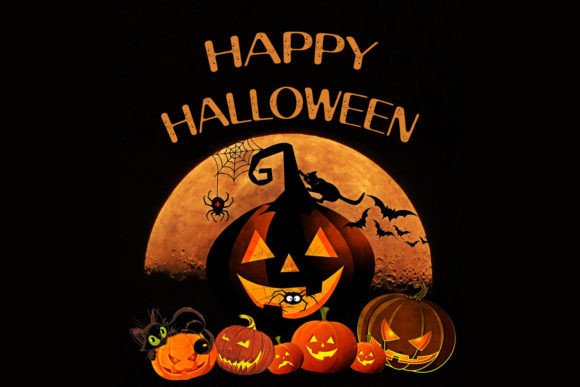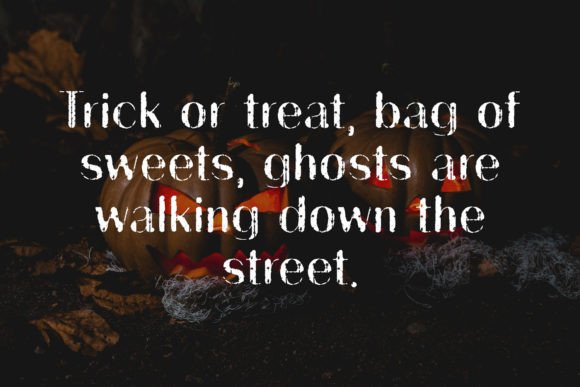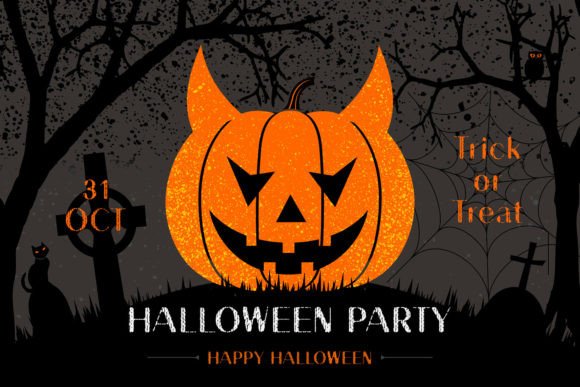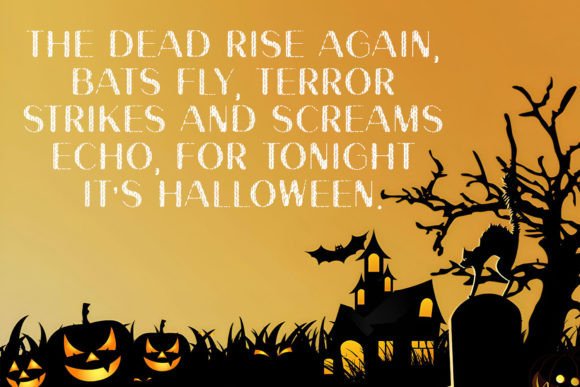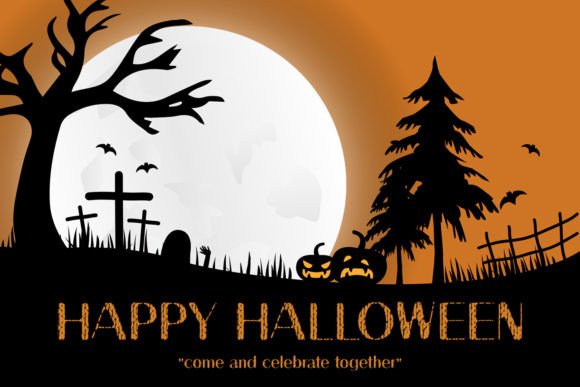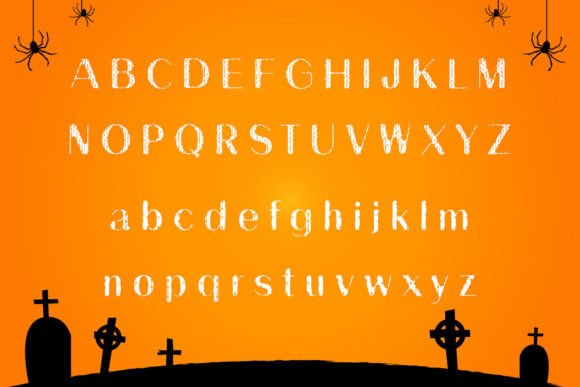
Fencing Ghost: The Ultimate Font for Spooky Designs
Are you looking for a font that will add a touch of eeriness to your designs? Look no further than Fencing Ghost, a dark, scary, and creepy handwritten display font. With its unique style, this font is perfect for creating horror and Halloween-themed projects that will leave a lasting impression on your audience.
What is Fencing Ghost?
Fencing Ghost is a carefully crafted font that is designed to evoke a sense of fear and unease. Its handwritten style gives it a personal and intimate feel, making it perfect for creating spooky and eerie designs. The font’s dark and creepy aesthetic is sure to add a touch of horror to any project, making it ideal for Halloween-themed designs, horror movie posters, and other spooky projects.
Key Features of Fencing Ghost
Fencing Ghost has several key features that make it the perfect font for spooky designs. Some of its key features include:
- Dark and Creepy Aesthetic: Fencing Ghost has a dark and creepy aesthetic that is sure to add a touch of horror to any project.
- Handwritten Style: The font’s handwritten style gives it a personal and intimate feel, making it perfect for creating spooky and eerie designs.
- Unique and Distinguishable: Fencing Ghost has a unique and distinguishable style that sets it apart from other fonts.
- Easy to Read: Despite its creepy aesthetic, Fencing Ghost is easy to read, making it perfect for use in a variety of designs.
Uses for Fencing Ghost
Fencing Ghost is a versatile font that can be used in a variety of designs, including:
- Halloween-themed Designs: Fencing Ghost is perfect for creating Halloween-themed designs, such as invitations, posters, and flyers.
- Horror Movie Posters: The font’s dark and creepy aesthetic makes it perfect for creating horror movie posters and other spooky designs.
- Creepy Logos: Fencing Ghost can be used to create creepy logos for businesses, such as haunted houses or horror-themed restaurants.
- Eerie Invitations: The font can be used to create eerie invitations for parties and other events.
Why Choose Fencing Ghost?
There are many reasons why you should choose Fencing Ghost for your spooky designs. Some of the reasons include:
- Unique Style: Fencing Ghost has a unique and distinguishable style that sets it apart from other fonts.
- High-Quality: Fencing Ghost is a high-quality font that is designed to produce crisp and clear results.
Tips for Using Fencing Ghost
Here are a few tips for using Fencing Ghost in your designs:
- Use it Sparingly: Fencing Ghost is a bold font, so it’s best to use it sparingly to avoid overwhelming your design.
- Pair it with Other Fonts: The font can be paired with other fonts to create a unique and interesting design.
- Experiment with Different Sizes: Fencing Ghost can be used in a variety of sizes, from large headings to smaller text.
- Have Fun: The most important thing is to have fun and be creative with Fencing Ghost!
Fencing Ghost is a dark, scary, and creepy handwritten display font that is perfect for creating spooky and eerie designs. With its unique style and versatile uses, it’s a great choice for designers and crafters who want to add a touch of horror to their projects. Whether you’re creating Halloween-themed designs, horror movie posters, or creepy logos, Fencing Ghost is the perfect font for the job.